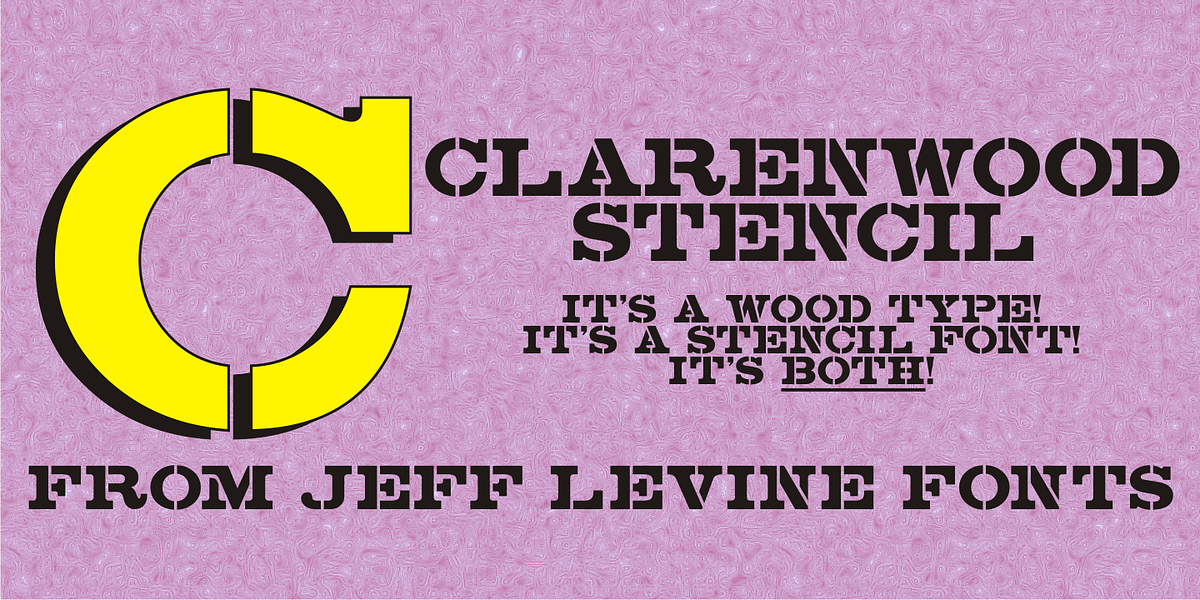
Clarenwood Stencil JNL
It’s a wood type! It’s a stencil font! It’s BOTH!
Clarenwood Stencil JNL was originally designed as a solid alphabet (<a href="/fonts/jeff-levine/clarenwood-jnl">Clarenwood JNL</a>) modeled from vintage wood type. The stencil treatment was applied to add a fresh look to a classic lettering design.